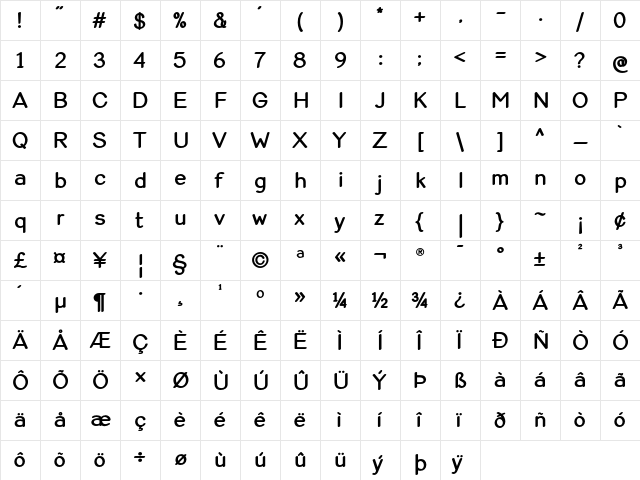
Violina SemiBold
Design Context for Violina Typeface
Violina is a composed and adaptable typeface that performs quietly and consistently across a wide range of design contexts. Its bold stroke weight gives it real presence on the page.
Pro Tip: Pair Violina with a font of contrasting weight or personality to build a more expressive typographic hierarchy.